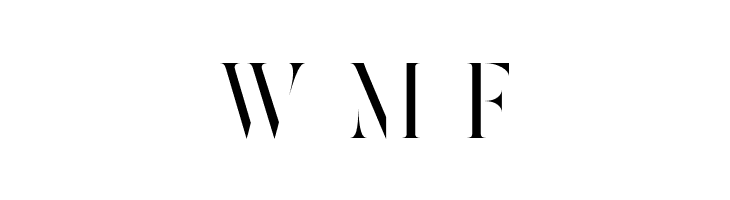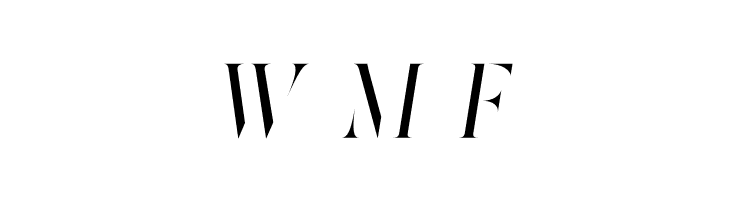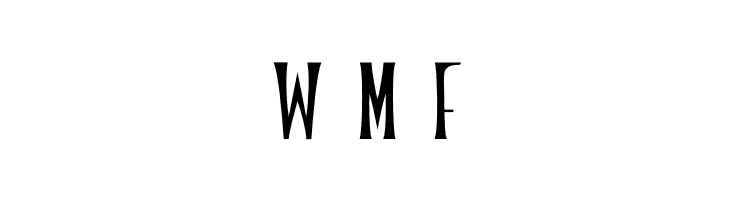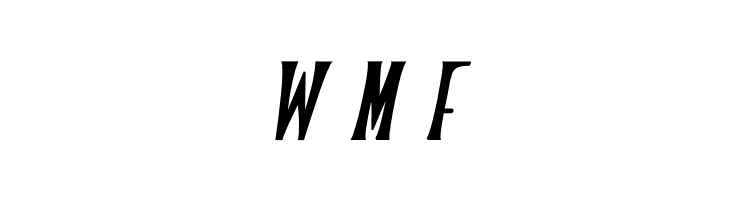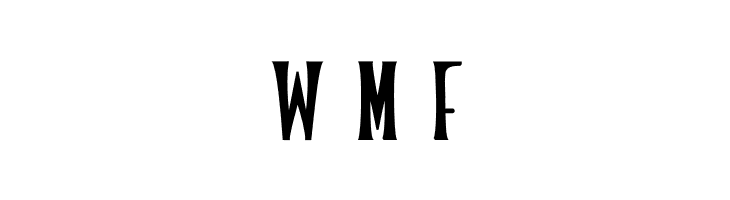
Greback Grotesque PERSONAL Bold Font
A bold, modern sans-serif font with clean lines and uniform spacing.
Alpha Danthe PERSONAL USE Regular Font
A graceful and elegant handwritten font with delicate strokes.
Sabila Renytha PERSONAL USE Italic Font
A flowing, elegant script font with a refined, italic style.
Greback Grotesque PERSONAL Regular Font
A modern sans-serif font with geometric shapes and uniform strokes.
Greback Grotesque PERSONAL Light Font
A thin, modern font with a minimalist and sleek design.
Sabila Renytha PERSONAL USE Regular Font
A graceful, handwritten script font with elegant, flowing lines.
Greback Grotesque PERSONAL Bold italic Font
A bold, italicized font with a modern and clean design.
Alpha Danthe PERSONAL USE Italic Font
A modern, elegant script font with flowing, cursive strokes.
Romelano Bold PERSONAL USE Bold Font
A bold, dynamic font with tall, slightly condensed characters and a strong presence.
Greback Grotesque PERSONAL Italic Font
A sleek, modern italic font with uniform stroke width and geometric design.
Greback Grotesque PERSONAL Light Italic Font
A sleek, modern, and light italic font with a minimalistic design.
Romelano PERSONAL USE Regular Font
A bold, dynamic font with high contrast and elegant, narrow characters.
Moguine Serif PERSONAL USE Italic Font
An elegant serif font with a dramatic italic slant and high contrast strokes.
Romelano Italic PERSONAL USE Italic Font
A dynamic italic font with sharp serifs and a bold, elegant style.
Moguine Serif PERSONAL USE Regular Font
A high-contrast serif font with elegant, sharp lines and modern appeal.
Romelano Bold Italic PERSONAL USE Bold Italic Font
Hamilltown PERSONAL USE Regular Font
A decorative, distressed font with vintage swirls and flourishes.
Hamilltown PERSONAL USE Italic Font
A bold, italic handwritten font with a vintage, distressed texture.